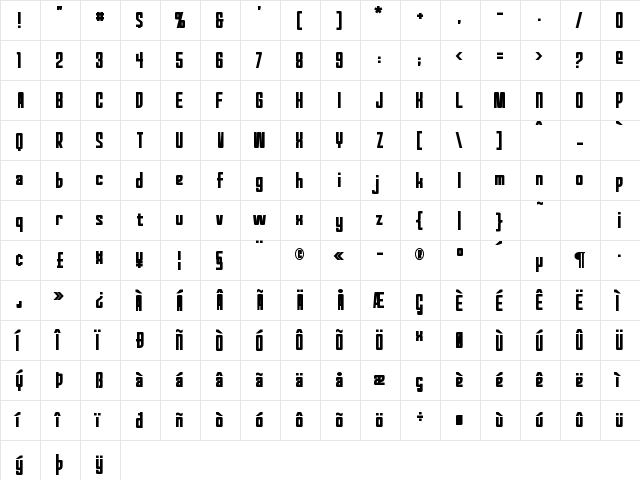
Red World Bold
| Foundry | Neale Davidson |
| Designer | Neale Davidson |
Design Context for Red World Typeface
Red World takes a measured approach to typography — its balanced proportions and neutral character make it a reliable workhorse for both digital and print work. The heavy weight commands attention and anchors typographic hierarchies.
Pro Tip: Pair Red World with a font of contrasting weight or personality to build a more expressive typographic hierarchy.